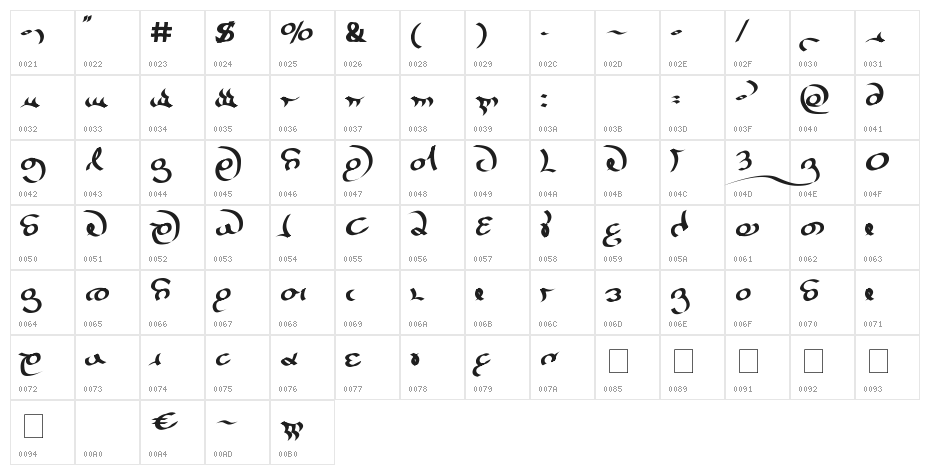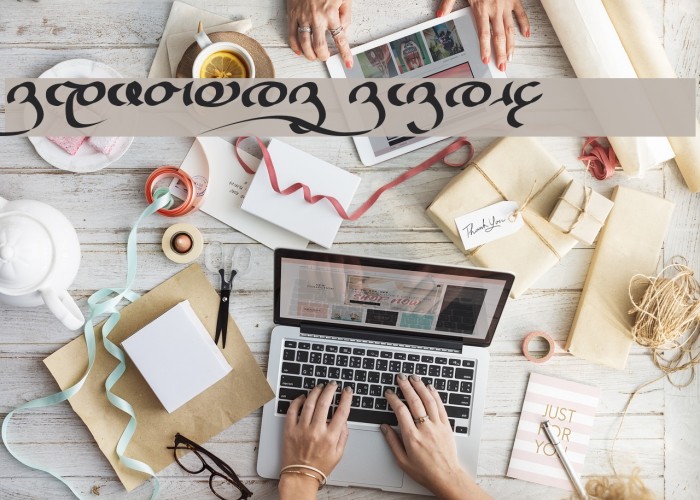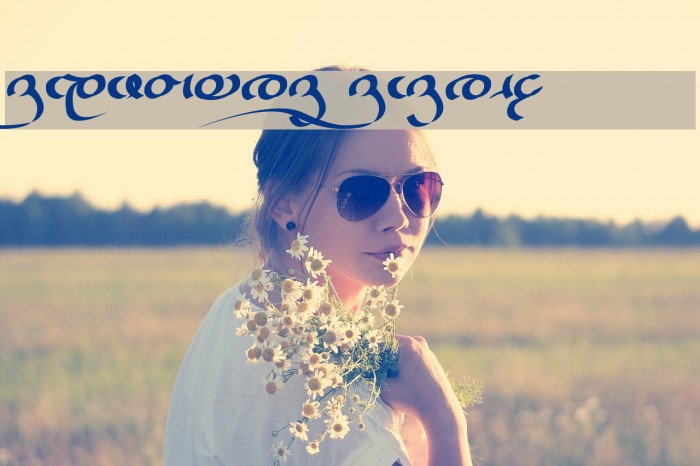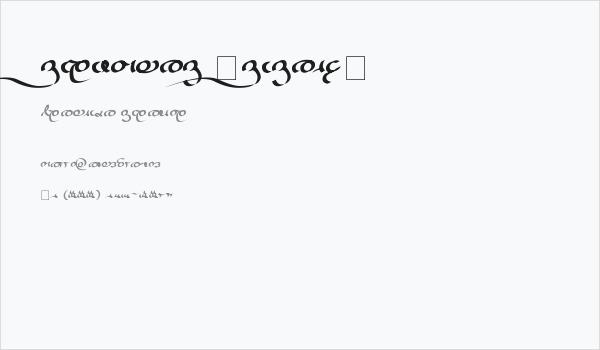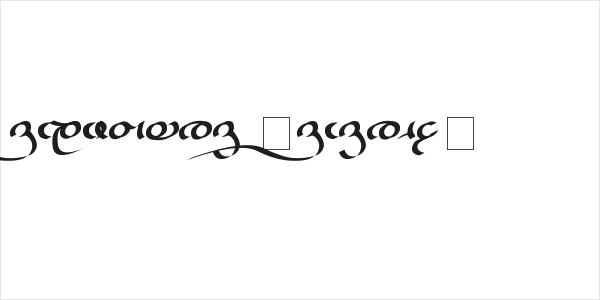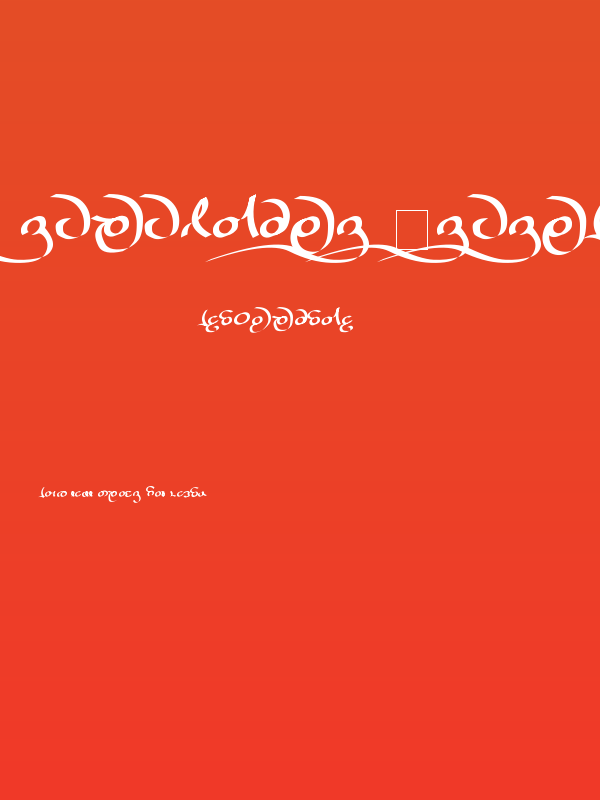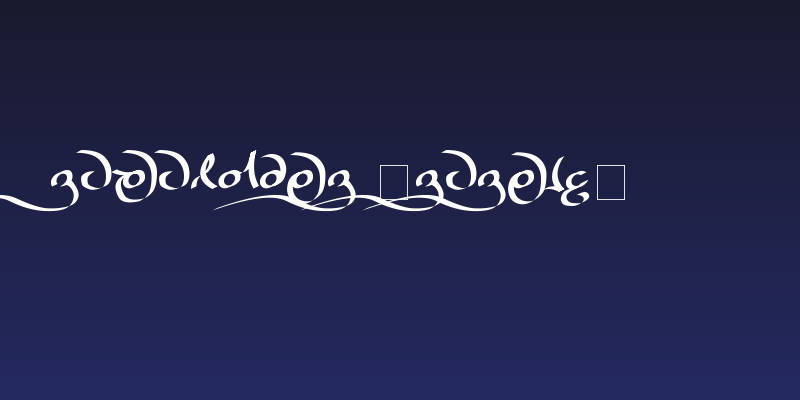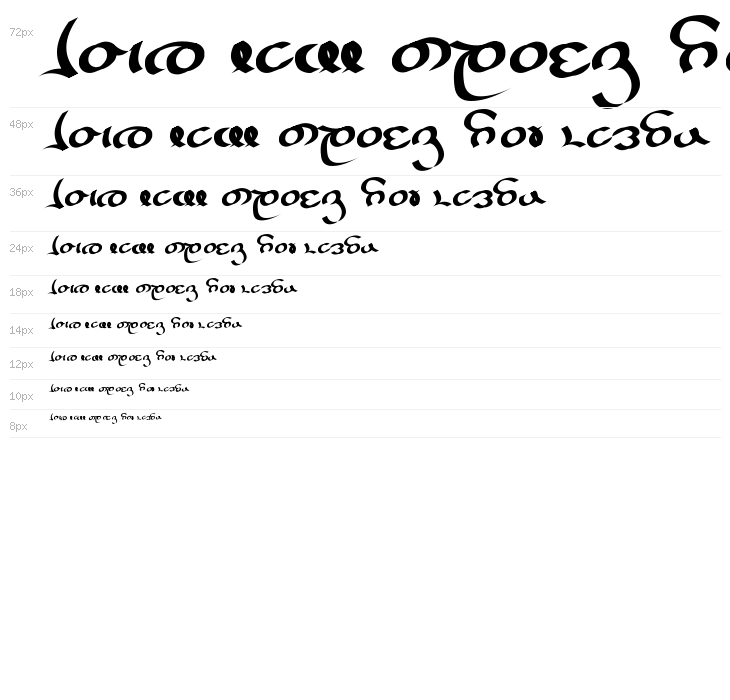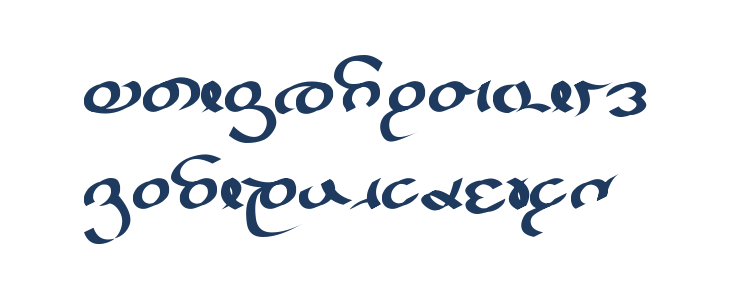
Nirichaen [Ninety] Font
Nirichaen [Ninety] Description
This font features a highly decorative and artistic style, reminiscent of calligraphic or script-like designs. The characters are fluid and dynamic, with elegant curves and intricate details that suggest a sense of movement and grace. The strokes vary in thickness, adding a dramatic flair and a sense of sophistication. This font is visually striking and captures attention with its unique and ornate appearance, making it suitable for creative and expressive projects.
| Use Case | Headlines, Logos, Artistic projects |
| Proposed Projects | Ideal for artistic projects, invitations, branding, and decorative headings. |